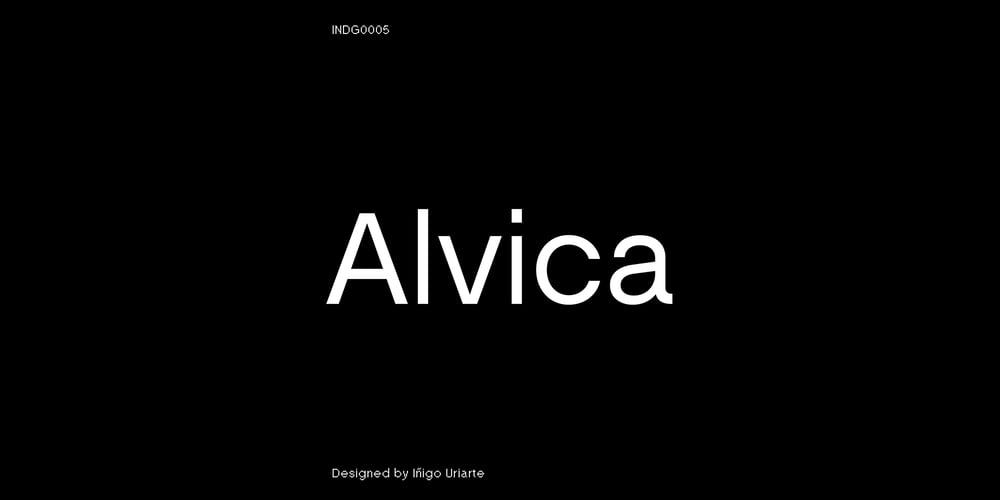
INDG Alvica Font Family was designed by Iñigo Uriarte and published by Iñigo Uriarte. INDG Alvica contains 5 styles and family package options. Swiss-knife (you get it?), everyday use, highly versatile, all-in-one typographic familly.Sober in appearance, but with quirky stylistic alternates.Originally conceived just to fulfill my personal design needs, I decided to share it with the world now. I works well both in big and small sizes.OpenType features: liga: Standard ligatures dlig: Discretionary ligatures salt: Big lowercase ss01: Classic alternates ss02: Supergeometric ss03: Reversed glyphs ss04: Total chaos ss05: Big lowercase alternates zero: Slashed zero smcp: Small CapsAs always, have fun, and don’t hesitate to contact me at: eMail inigo.uriarte20@gmail.com / IG @indigo______indigo